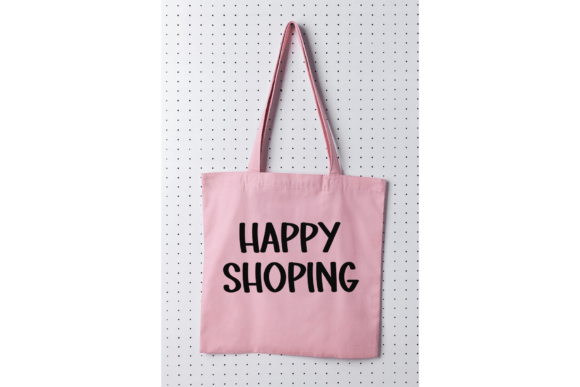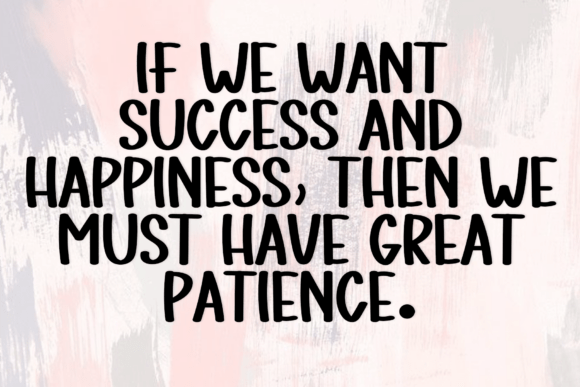
Camila Bryan Font: Elevate Your Designs with a Touch of Modern Elegance
In the world of typography, a font can make all the difference in the success of a design project. Whether you’re a seasoned designer or a crafty DIY enthusiast, finding the right font can be a daunting task. That’s where Camila Bryan Font comes in – a clean, modern handwritten display font that combines charm with professionalism. In this article, we’ll dive into the features and benefits of Camila Bryan Font, and explore how it can elevate your designs to the next level.
A Modern Handwritten Collection
Camila Bryan Font belongs to the modern handwritten collection, a category that has gained immense popularity in recent years. This font style has been carefully crafted to offer a fresh and contemporary take on traditional hand lettering. With its tall, playful letters, Camila Bryan Font exudes an energetic yet minimal appearance, making it perfect for a wide range of design applications.
Key Features of Camila Bryan Font
So, what sets Camila Bryan Font apart from other fonts in the market? Here are some of its key features:
- Clean and Modern Design: Camila Bryan Font boasts a clean and modern design that is both visually appealing and highly legible.
- Handwritten Display Font: This font is specifically designed for display purposes, making it ideal for headings, titles, and quotes.
- Playful yet Professional: The tall, playful letters of Camila Bryan Font give it a youthful and energetic vibe, while its overall design ensures it remains professional and sophisticated.
- Versatile: This font shines in both digital and print formats, making it a versatile choice for various design projects.
Use Cases for Camila Bryan Font
Camila Bryan Font is an incredibly versatile font that can be used in a variety of design projects. Here are some use cases where this font truly excels:
- Personal Branding: Create a lasting impression with Camila Bryan Font, perfect for logos, business cards, and branding kits.
- Creative Projects: Add a touch of elegance to your creative projects, such as brochures, posters, and flyers.
- Product Packaging: Make your product stand out with Camila Bryan Font, ideal for labels, packaging, and product descriptions.
- Stylish Headings: Elevate your website or blog with stylish headings that showcase the modern elegance of Camila Bryan Font.
Whether you’re a designer or a crafter, Camila Bryan Font offers numerous benefits that can enhance your work. Here are some of the advantages of using this font:
- Easy to Read: Camila Bryan Font is highly legible, making it perfect for designs that require clear communication.
- Unique and Memorable: The playful yet professional design of Camila Bryan Font ensures your designs stand out and leave a lasting impression.
- Time-Saving: With Camila Bryan Font, you can create stunning designs quickly and efficiently, saving you time and effort.
In conclusion, Camila Bryan Font is a modern handwritten display font that offers a perfect blend of charm and professionalism. Its clean design, playful letters, and versatility make it an excellent choice for various design projects. Whether you’re a designer or a crafter, Camila Bryan Font is sure to elevate your designs and help you create stunning visual content. So, why wait? Discover the power of Camila Bryan Font and take your designs to the next level!